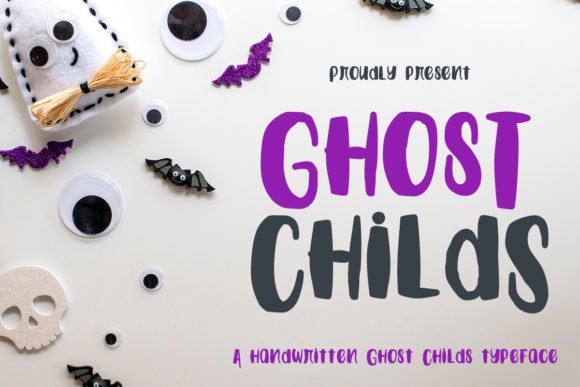
The Perfect Blend of Whimsy and Confidence: Introducing Ghost Childs Font
Have you ever stared at a blank page, desperately searching for the perfect font to bring your creative vision to life? We’ve all been there. The frustration of scrolling through font libraries, only to settle for something that’s just ‘good enough.’ But what if you could find a font that exudes confidence, charm, and a touch of whimsy? Enter Ghost Childs Font, the perfect solution for designers looking to elevate their creative projects.
Ghost Childs Font is a light and thick brush display font that’s designed to make a statement. With its bold and playful style, it’s perfect for brochures, billboards, books, magazines, and any other project that needs a confident typography. Whether you’re a seasoned designer or just starting out, Ghost Childs Font is a valuable addition to your toolkit, offering endless possibilities for creative expression.
Ghost Childs Font Key Features
- Font Family: Ghost Childs Font is a unique, handwritten font designed to evoke a sense of whimsy and playfulness.
- Unique Characteristics: This font features a distinctive, childlike script with irregular letterforms, making it perfect for adding a touch of nostalgia and personality to designs.
Designer Review: Ghost Childs Font
Overall, I think Ghost Childs Font is a unique and intriguing addition to the world of typography. ✨ One of the things that really stands out to me is the font’s versatility – it’s perfect for creating a sense of eeriness and mystery in any design project. The subtle irregularities and imperfections give it a handmade feel that’s really engaging.
The font also has a wide range of uses, from horror-themed projects to more abstract and experimental designs. I’ve had a lot of fun experimenting with it and seeing how it can be used to add an extra layer of depth and atmosphere to a design.
While Ghost Childs Font is a great addition to any designer’s toolkit, there are a few limitations to be aware of. ⚠️
- Some of the characters may not be as detailed or well-formed as I’d like, which can make them harder to read in certain contexts.
- The font is not particularly well-suited for large blocks of text, as the irregularities and imperfections can start to feel overwhelming.
Overall, I think Ghost Childs Font is a great choice for designers who want to add a touch of the unknown to their projects. With a little creativity and experimentation, it can be used to create some really unique and compelling designs.
Ghost Child’s Font is ideal for creating eerie, whimsical, or mystical designs. Common use cases include:
- Horror or fantasy movie posters
- Spooky or magical themed invitations
- Whimsical